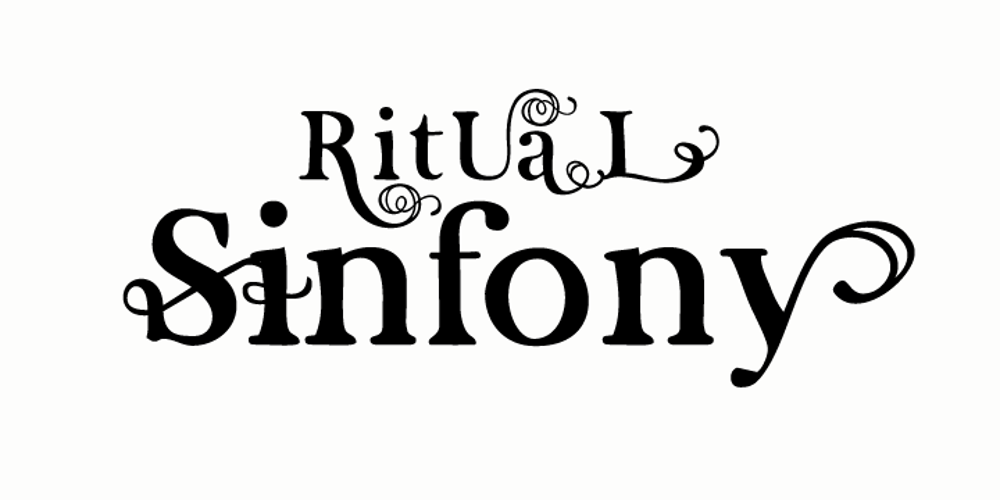
Karty Solid Font Family was designed by Carine de Wandeleer and published by Eurotypo. Karty Solid contains 3 styles and family package options. Karty Solid is a freehand typeface that was inspired by John Baskerville’s designs. Karty Solid comes in three version: Regular, condensed and Expanded, including a large set of swashes, ligatures and stylistic alternatives, which bring the chance to create logotypes, originals headlines for fashion magazines, children books, advertising and much more.